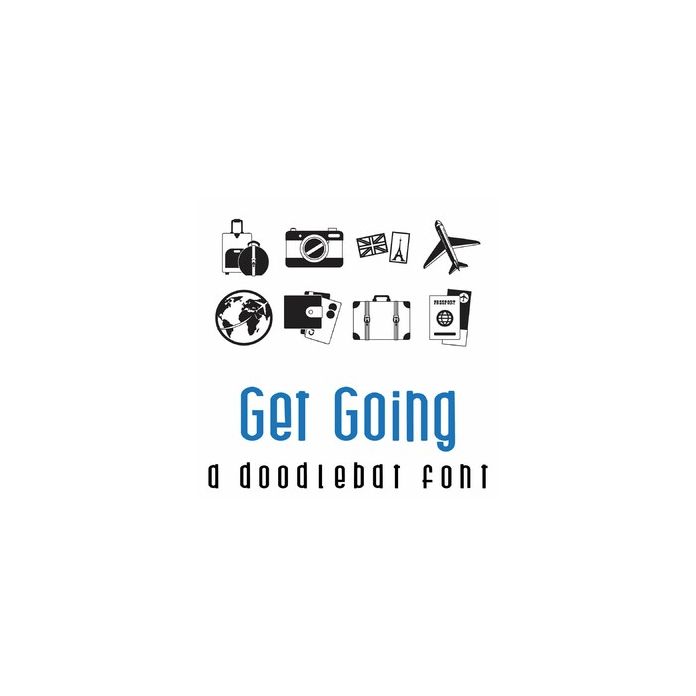
Get Going Doodlebat Font
This fun doodlebat font features 26 vacaction themed imagery. Perfect for cards, crafts, gifts, decor, scrap book pages, planner stickers and more!